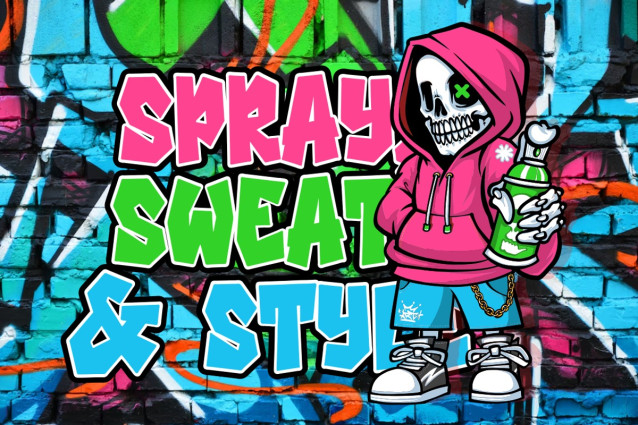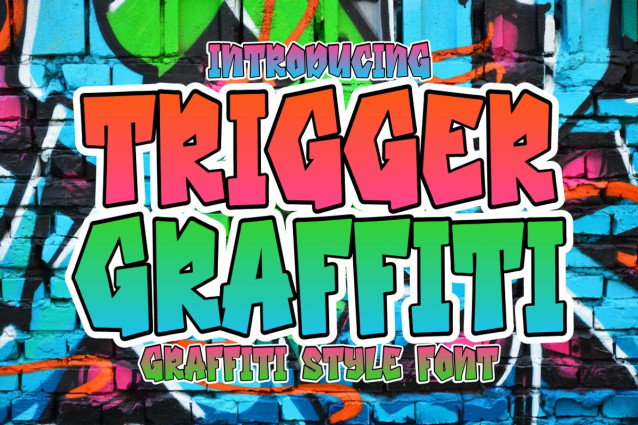
Trigger Graffiti Font
Trigger Graffiti Font is an electrifying street-style font that explodes with urban energy and youthful rebellion. With thick, uneven letterforms and hard-angled cuts, this typeface captures the bold spontaneity of real wall tags and mural lettering. Its vibrant gradient fills — from hot pink to neon green — paired with thick black outlines and white borders, create a high-contrast look that stands out against any backdrop. Whether it’s layered over brick textures, vibrant murals, or digital canvases, Trigger Graffiti is built to grab attention and never let go. Perfect for expressive compositions, it radiates the attitude of hip-hop culture, skate parks, and underground art scenes.
This graffiti font is designed for designers who want their visuals to speak loud and proud. Ideal for logo branding, streetwear merchandise, event posters, skateboard decks, sticker packs, social media headers, and urban marketing campaigns, Trigger Graffiti brings an authentic street-art vibe with every character. The uppercase set, dynamic punctuation, and quirky symbols all echo the raw, freestyle look of graffiti writing — creating endless customization potential. Whether you’re designing for street culture, music promotion, or bold personal projects, this font ensures your message comes through in style, with character, and with impact.